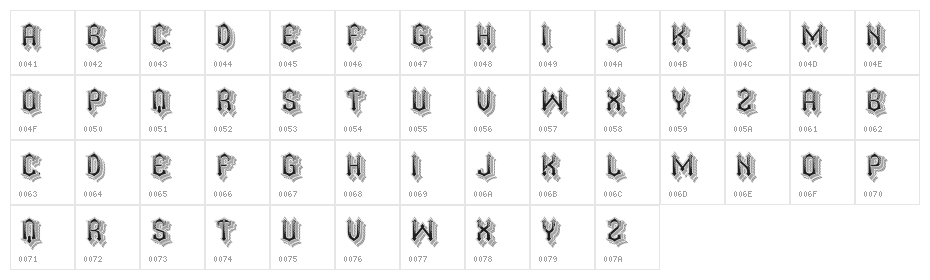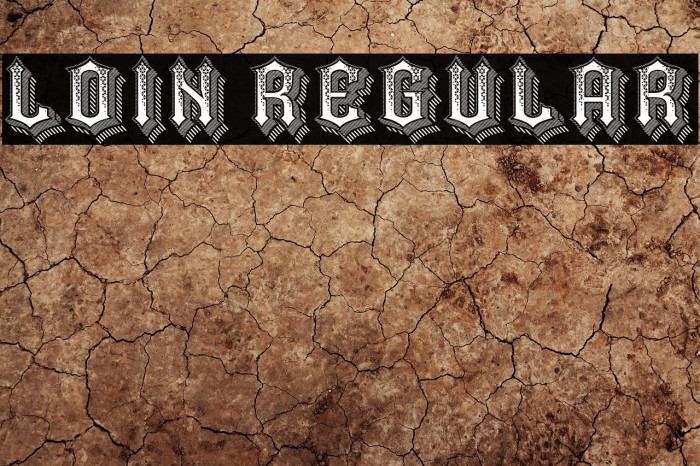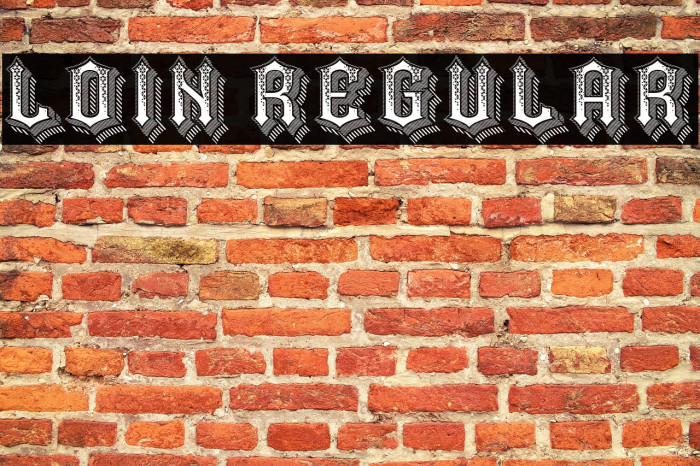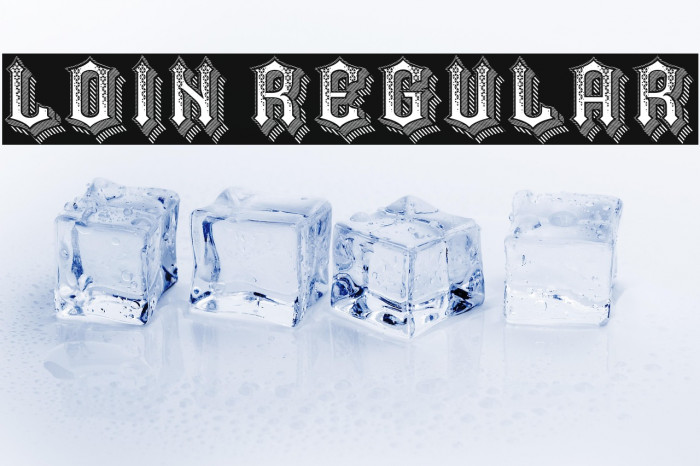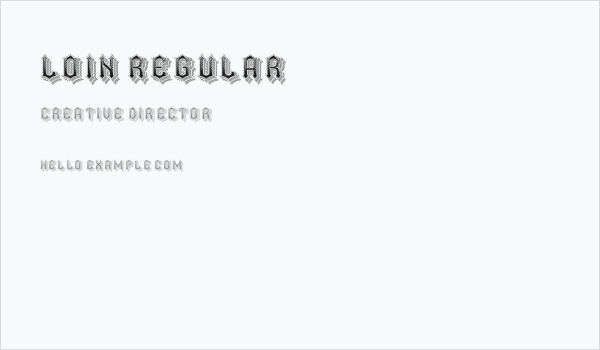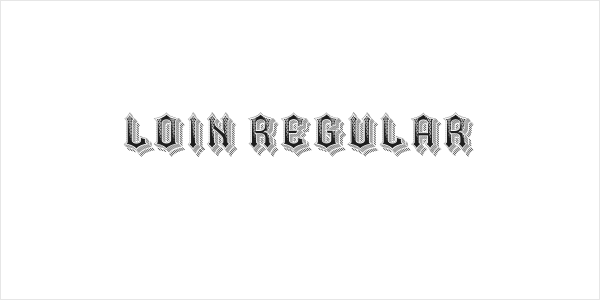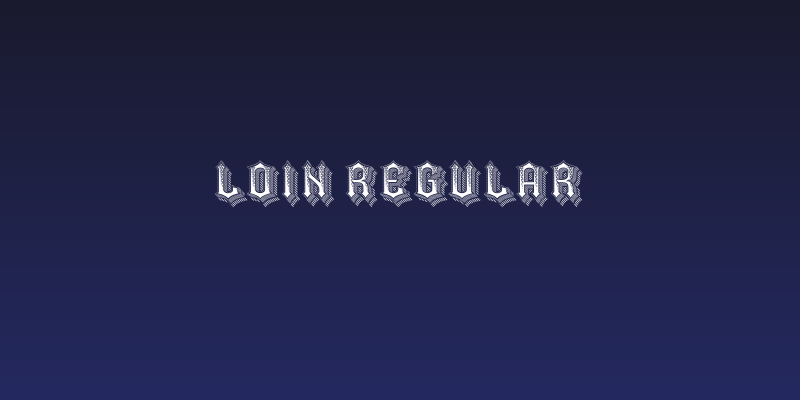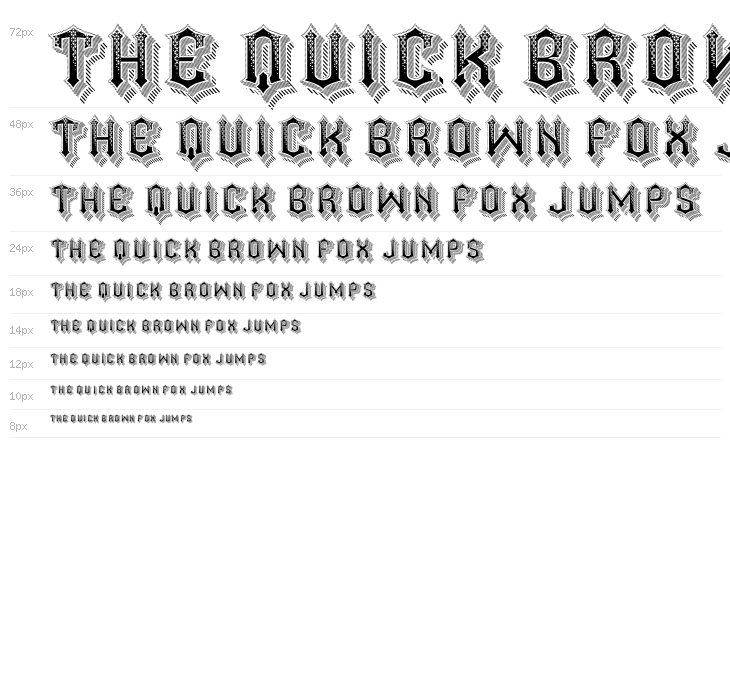
Loin Regular Font
Loin Regular Description
This font exhibits a bold and intricate design, reminiscent of traditional blackletter styles. Each character is adorned with elaborate detailing, featuring sharp angles and decorative elements that give it a distinct, gothic appearance. The strokes are thick and pronounced, with a high contrast between the bold lines and the negative space. The overall aesthetic is both historical and ornamental, making it suitable for projects that require a dramatic and eye-catching typeface.
| Proposed Projects | Ideal for use in branding, posters, album covers, and any design that seeks to convey a sense of tradition or drama. |